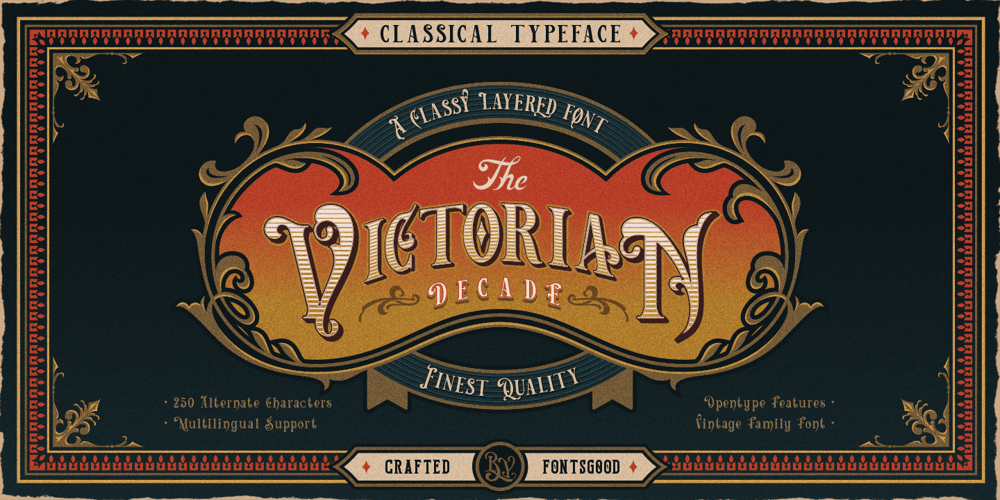
Victorian Decade Font Family was designed by Eric Kurniawan, Ade Meiada and published by Fontsgood. Victorian Decade contains 4 styles and family package options. Introducing “Victorian Decade” a dimensional letters with artistic devices of optical illusionism and forced perspective from 19th century. Forged with opentype features give you easiest way to access all 250 alternate characters, discretionary ligature, swash and ligature. It is possible to combine and options to create label designs, headlines, logotypes, signage, posters, greeting cards, letterheads, t-shirts and much more.